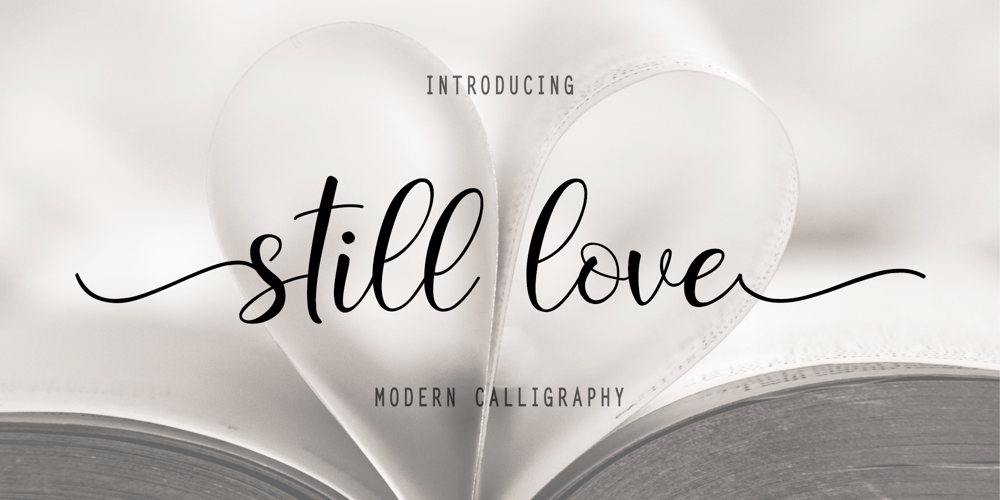
Still Love Font Family was designed by Aditiyo Dwi Putranto and published by Creaditive Design. Still Love contains 2 styles and family package options. Still Love is an exquisite handwritten font, masterfully designed to become a true favorite. Smooth, modern and strong characters at the same time looks stunning on wedding invitations, cards, books, quotes, logos, and business.Special Characters are available for lowercase letters with added beginning & end swashes, also Ligatures that can make your design more smooth and looks natural.